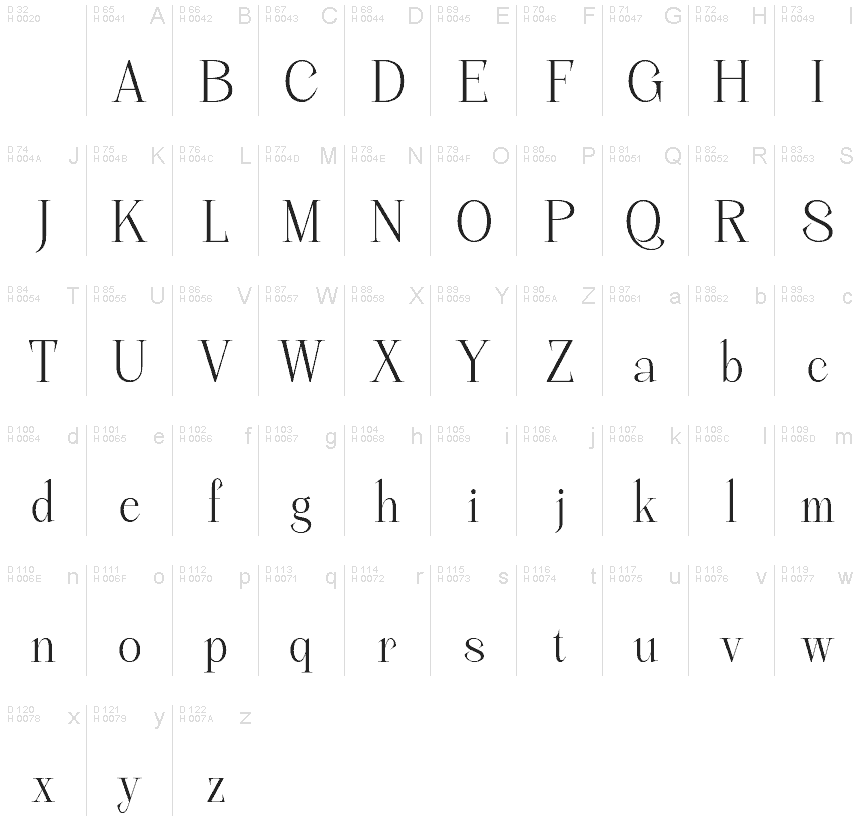
Chavler Demo Regular
Chavler font, by Craft Supply Co, is an elegant light serif which evokes a sophisticated and classic style. The refined ornamental letter shapes fall nicely in between traditional and contemporary making the font a great long-term timeless asset. It has a historical quality and evokes ancient books and art.
Use this free serif font for designing book covers, invitations, posters, quotes, logos and digital typography work. It will also look attractive when used to design greeting cards, business cards, labels or headings of all types whether in print or on screen. Its.